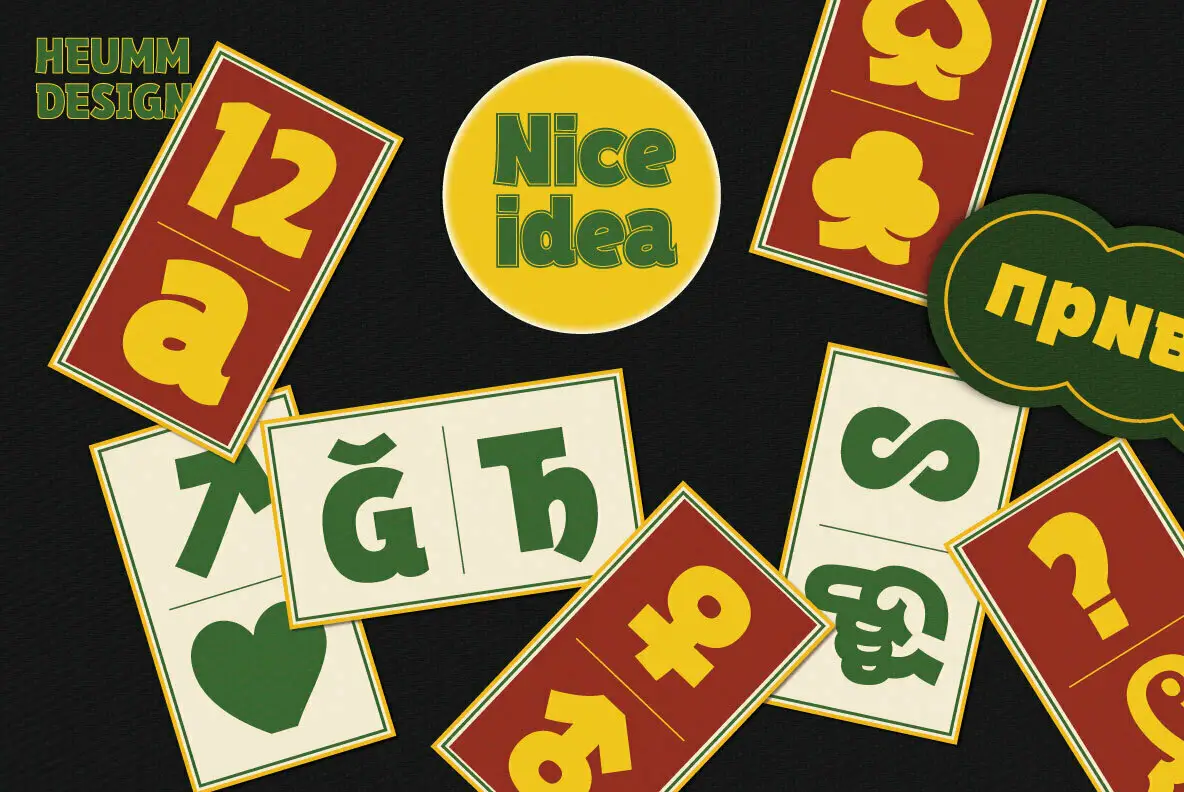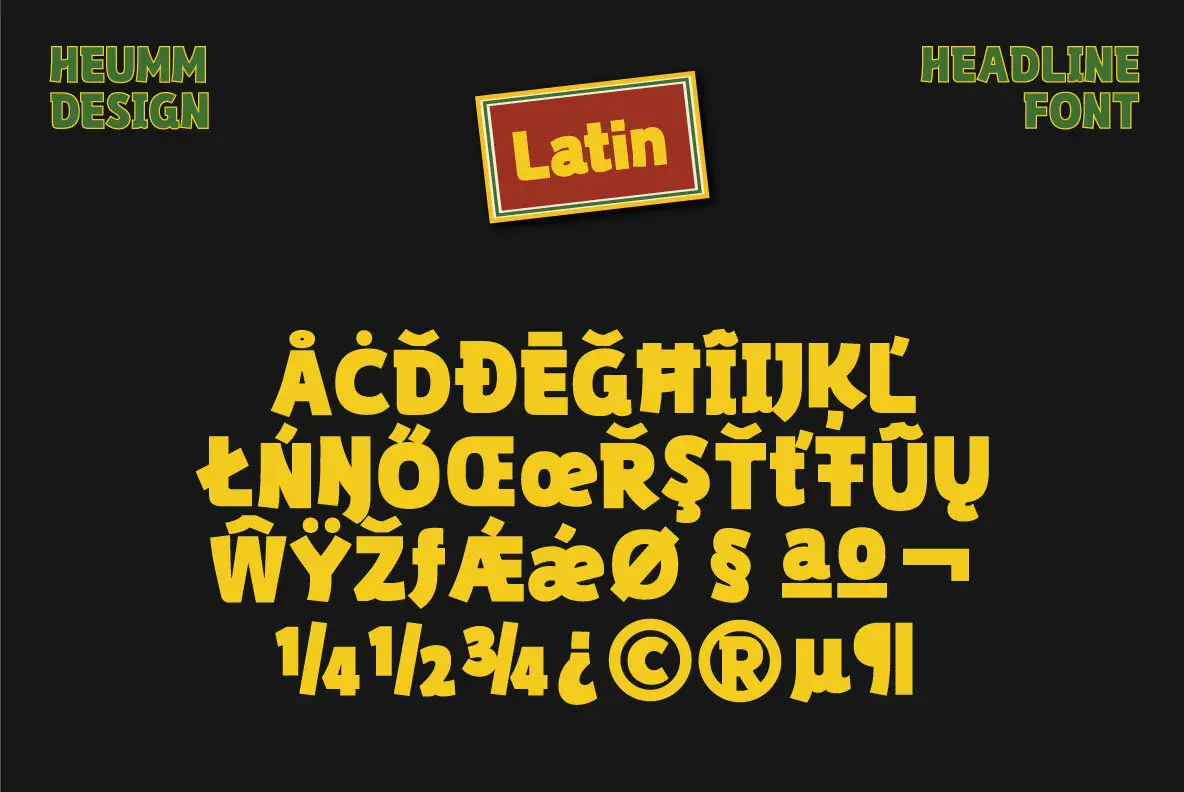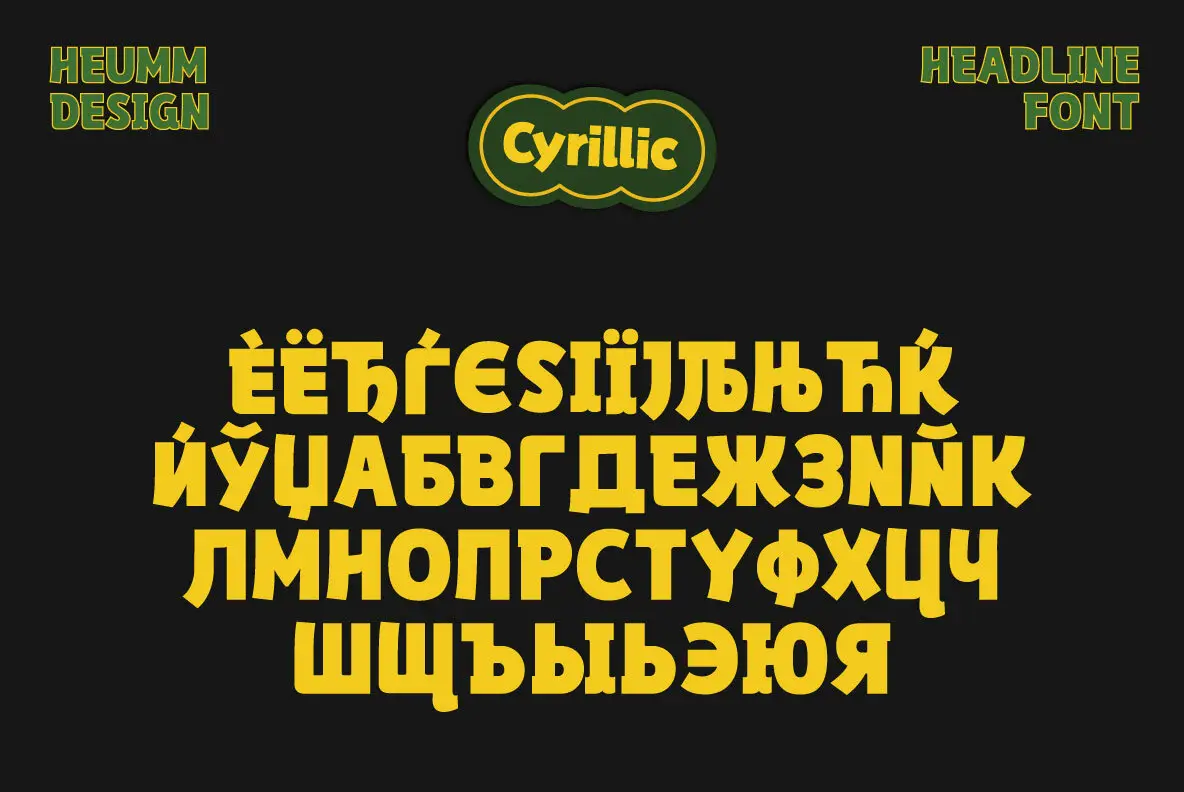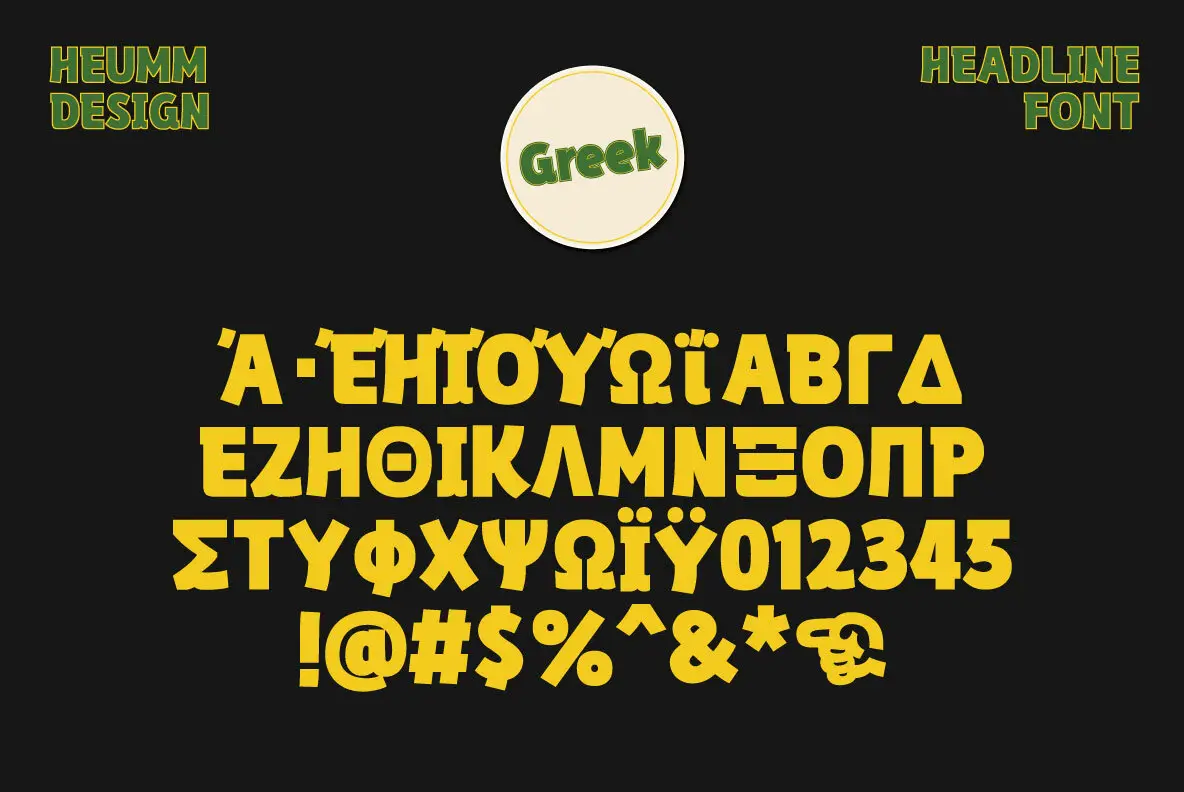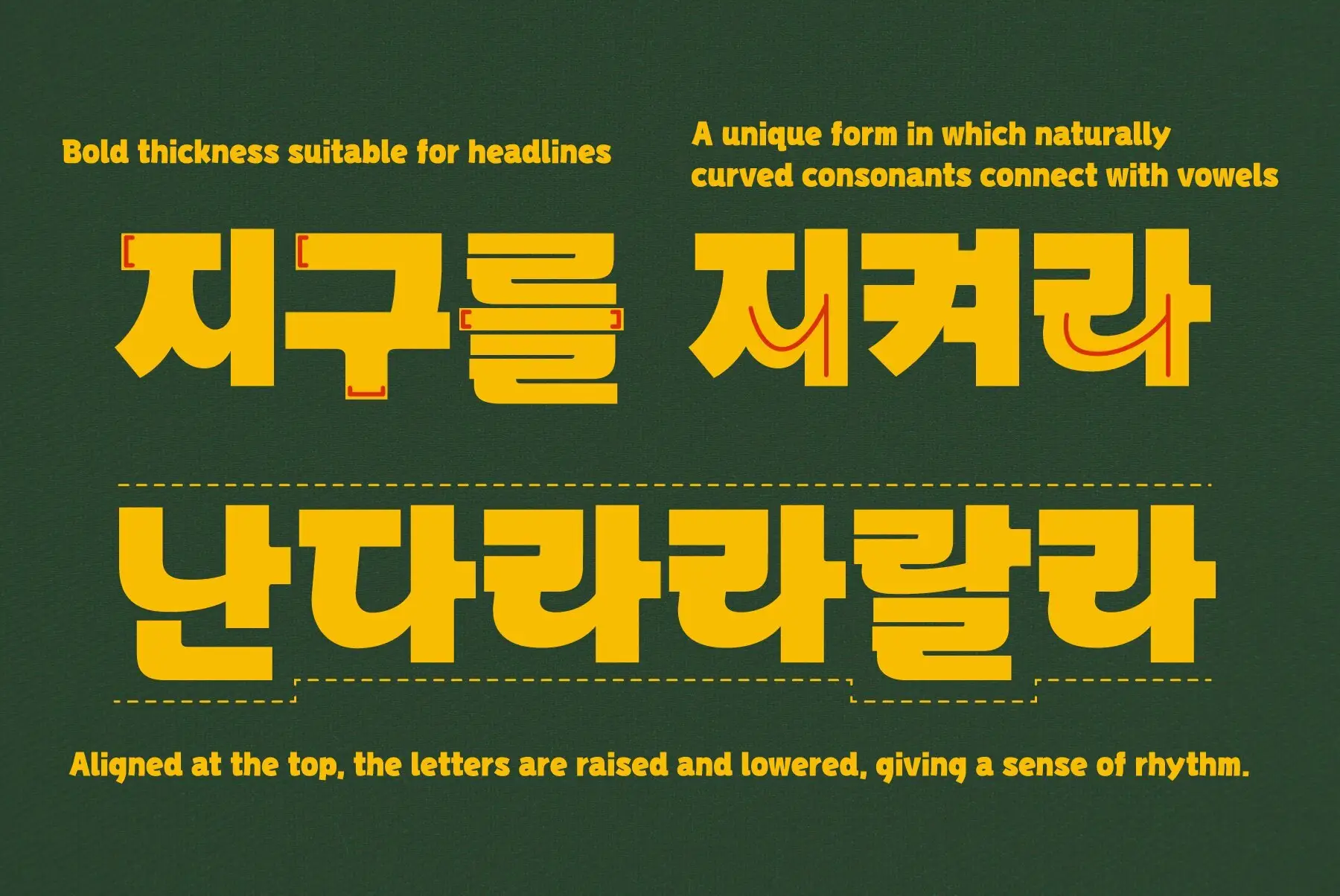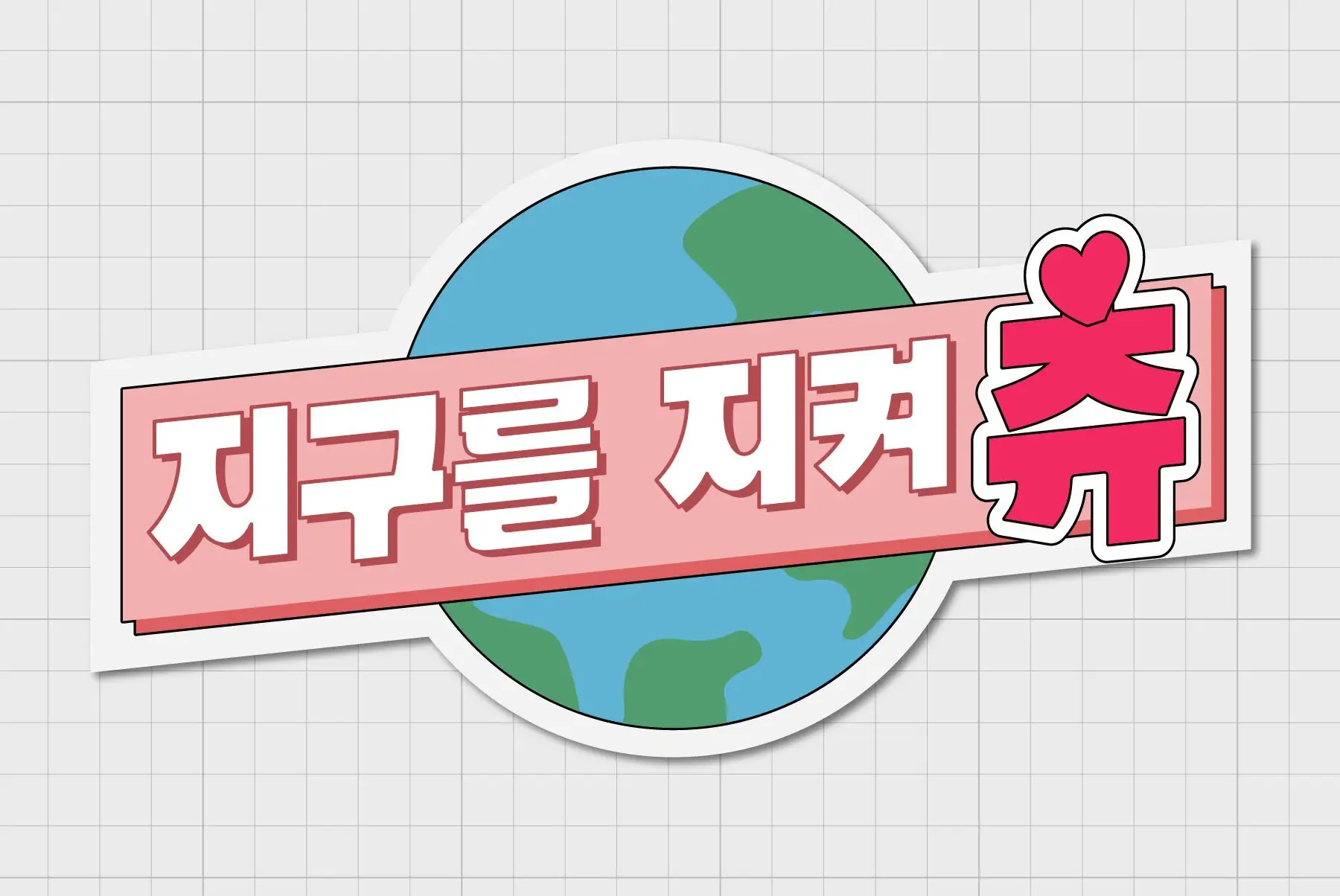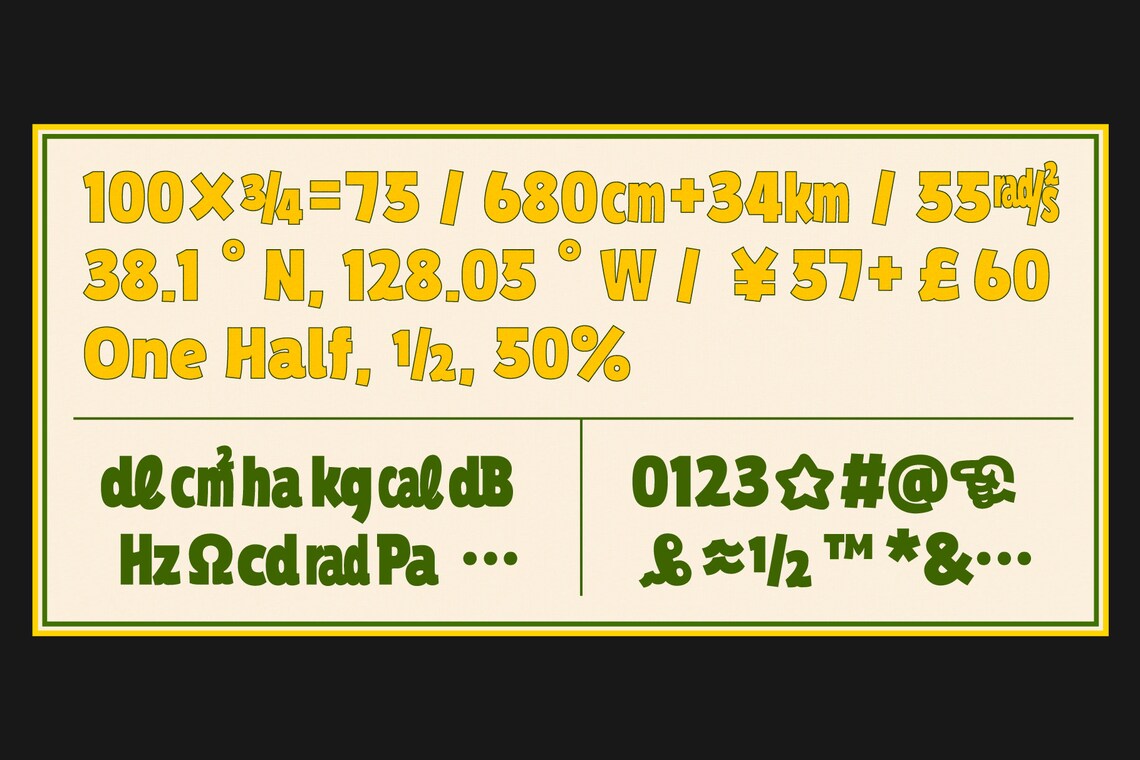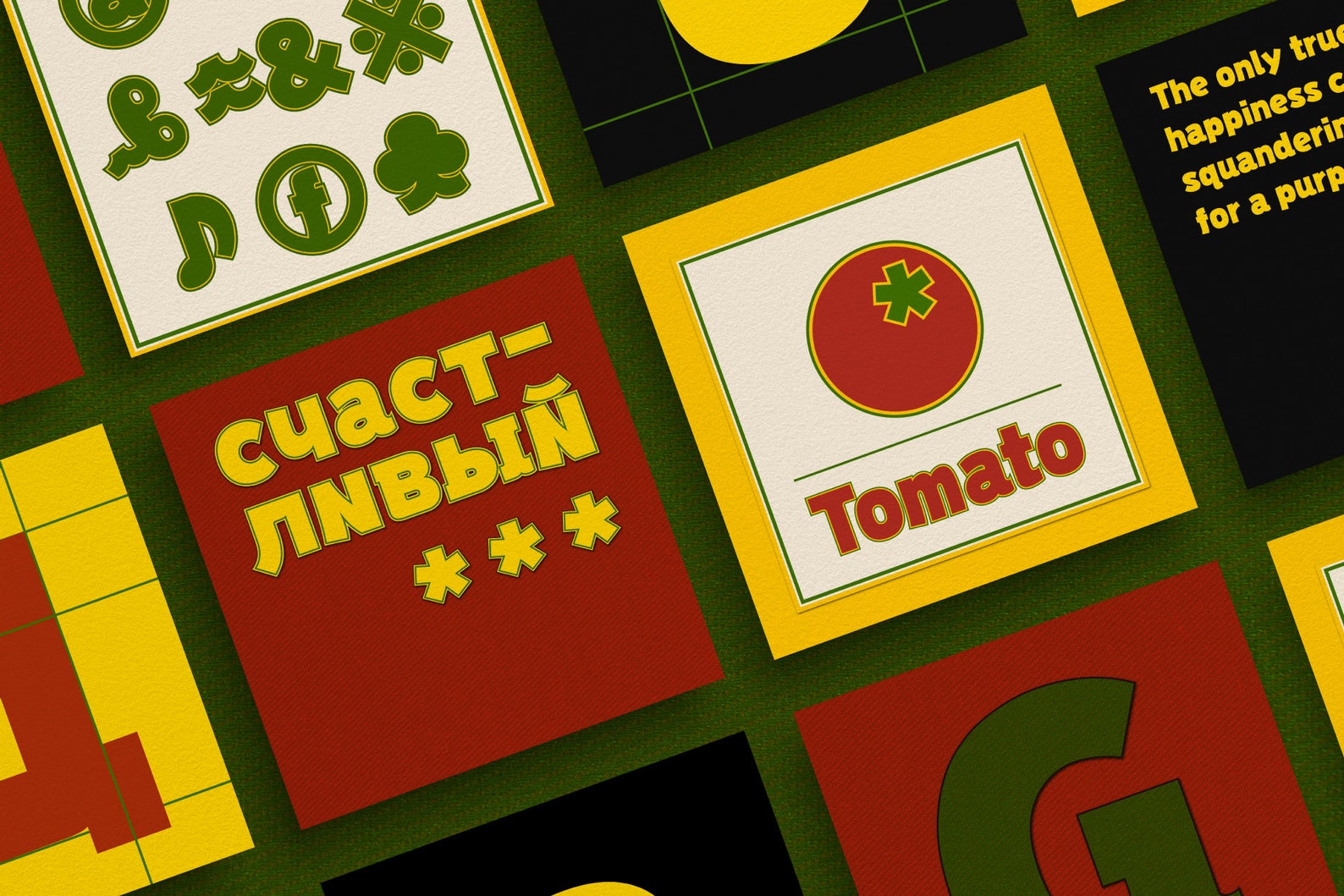
Hu Ketchup Black Font Free Download . Download hu ketchup black greek font. This font features bold, rounded characters. Thousands of designers (famous or not) use the image font detection system to find a font or similar free fonts from an image. Using a catalog of over 990k+ fonts (commercial or free) and our font finder ai, we are able to display over 60 fonts for every image uploaded. Hu ketchup is special headline font that has waving strokes like script font. It can be used to stress out something important, and. Click here and download the hu ketchup font · window, mac, linux · last updated 2023 · commercial licence included Hu the game by heumm design.
Hu Ketchup Black Font Free Download Hu the game by heumm design. Download hu ketchup black greek font. Thousands of designers (famous or not) use the image font detection system to find a font or similar free fonts from an image. Hu ketchup is special headline font that has waving strokes like script font. Hu the game by heumm design. It can be used to stress out something important, and. Using a catalog of over 990k+ fonts (commercial or free) and our font finder ai, we are able to display over 60 fonts for every image uploaded. Click here and download the hu ketchup font · window, mac, linux · last updated 2023 · commercial licence included This font features bold, rounded characters.